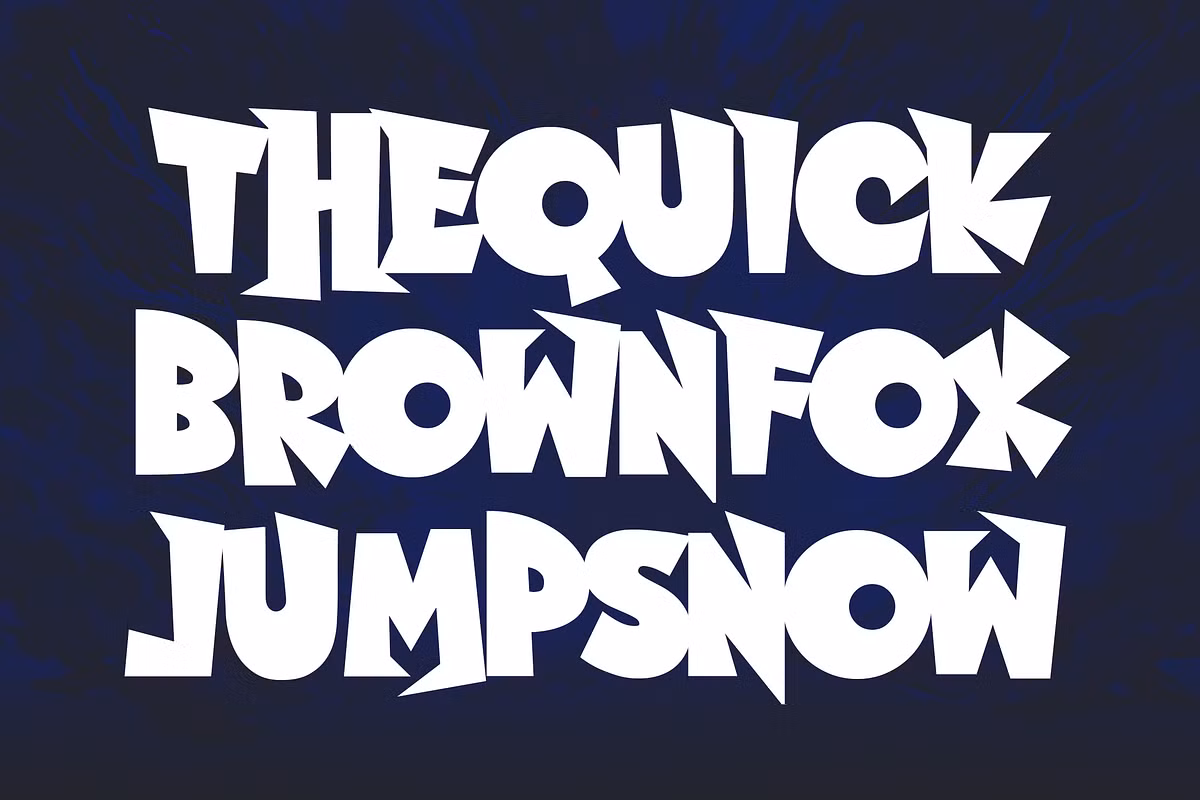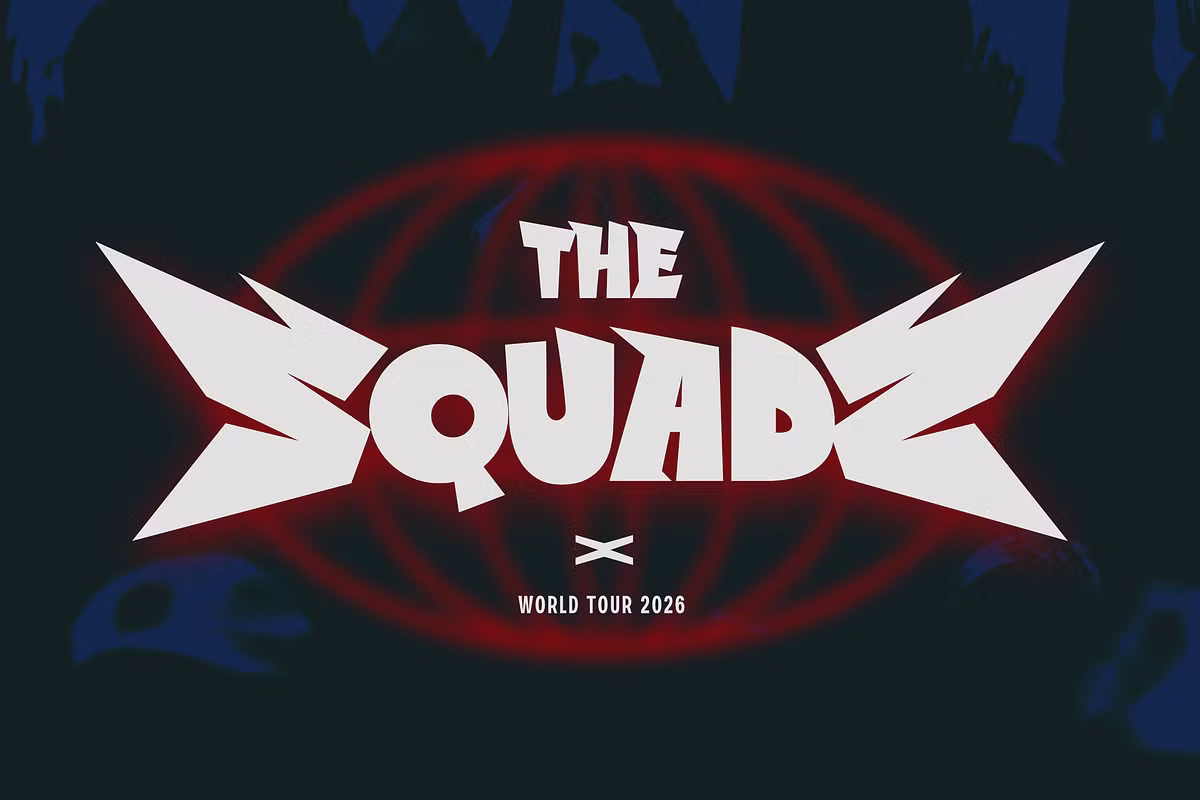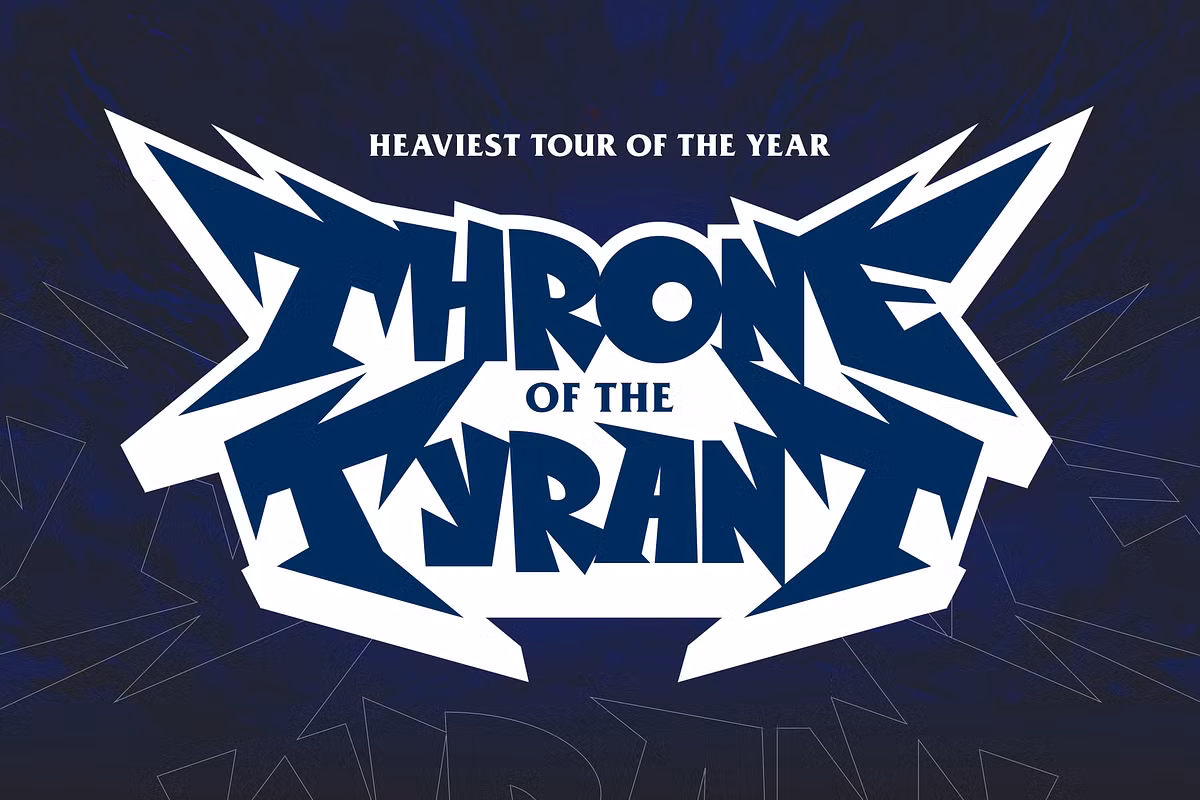
Kenzora: Bold Graffiti Font for Superhero Game Logos and Designs
Kenzora is a powerful modern graffiti display font designed to infuse your designs with a wild, energetic, and heroic vibe. Fusing graffiti attitude with modern fantasy aesthetics, Kenzora stands out as the ideal choice for a variety of creative projects. Whether you’re working on game titles, RPG projects, esports branding, or anime-inspired designs, Kenzora brings an impactful presence that elevates your visuals.
Kenzora is a great font for making a big impact, especially for things like superhero logos, cool lettering, and comic book-style pictures. It’s also perfect for posters and music band artwork because it’s bold and has a lot of personality. What makes Kenzora really special is how it mixes being bold with being artistic, which makes it a great choice for any project that needs to stand out and be noticed. Whether you’re working on something that needs to be intense and eye-catching, Kenzora is a versatile font that can help you achieve that.
Design Style of Kenzora
Kenzora’s design style is all about being bold and vibrant, with a flair for the dramatic. It’s like a splash of graffiti on a wall – colorful, dynamic, and full of energy. The thick lines and exaggerated letterforms give it a sense of movement, like it’s jumping off the page. This style is perfect for projects that want to inspire people, make them feel like heroes, or take them on an adventure. It’s all about creating a sense of excitement and thrill, and Kenzora’s design style delivers that in spades. Whether you’re looking to create a sense of daring and courage, or just want to add some edge to your project, Kenzora’s got you covered.
Kenzora’s take on classic graffiti typography is really fresh and modern, which makes it easy to use in all sorts of different visual settings – whether that’s gritty street art or sleek digital designs. The artistic touch it brings means your logos and headlines don’t just get your point across, but they do it with a lot of style and personality that people won’t soon forget.
Character Sets and Aesthetic Appeal
Kenzora has a wide range of characters, including capital letters, numbers, and special symbols. This means designers can create all sorts of different looks for their projects, and still get the effect they want. The characters are made to be easy to read, but also to really grab your attention and look great.
The way a font looks can really draw you in and make you feel something. Every letter is like a little piece of a bigger story, and this one’s all about being bold and going on adventures. That’s why it’s great for designs that want to get people excited and involved.
Use Cases for Kenzora
Kenzora is incredibly versatile, making it suitable for a wide array of projects. Here are some specific use cases where Kenzora truly shines:
- Game Titles: Kenzora’s style is really great for making game titles that people will remember, whether you’re creating a game about superheroes or an exciting role-playing adventure. It’s all about bringing your game to life with a title that grabs everyone’s attention.
- Esports Branding: In the competitive world of esports, having a logo that stands out is crucial. Kenzora can help create impactful brand identities that resonate with gaming enthusiasts.
- Comic Book Covers: The boldness of Kenzora makes it an excellent choice for comic book titles, where eye-catching typography is essential to attract readers.
- Music and Band Artwork: For musicians and bands looking to convey a powerful message through their visuals, Kenzora provides the perfect font to match their bold style.
- Posters and Promotional Material: Kenzora’s unique design makes it ideal for posters, ensuring that your promotional material captures attention and communicates your message effectively.
Pairing Suggestions for Kenzora
When you’re looking to get the most out of Kenzora in your designs, think about combining it with other fonts that complement its bold and striking personality. This can really make your work stand out. Here are some suggestions for font pairings that work well with Kenzora:
- For Body Text: Pair Kenzora with a clean sans-serif font like Montserrat or Lato. These fonts provide a modern contrast that maintains readability while allowing Kenzora to shine in headlines.
- For Subheadings: Use a slightly distressed serif font like Playfair Display to create a vintage feel that complements the graffiti style of Kenzora.
- For Accents: A handwritten script font can add a personal touch when used sparingly alongside Kenzora, creating a dynamic and inviting design.
With Kenzora, you can let your imagination run wild and create something truly amazing. So why not give it a try and see what incredible things you can create with this fantastic font? Whether you’re an artist, designer, or just someone who loves to express themselves, Kenzora is the perfect tool to help you bring your vision to life.